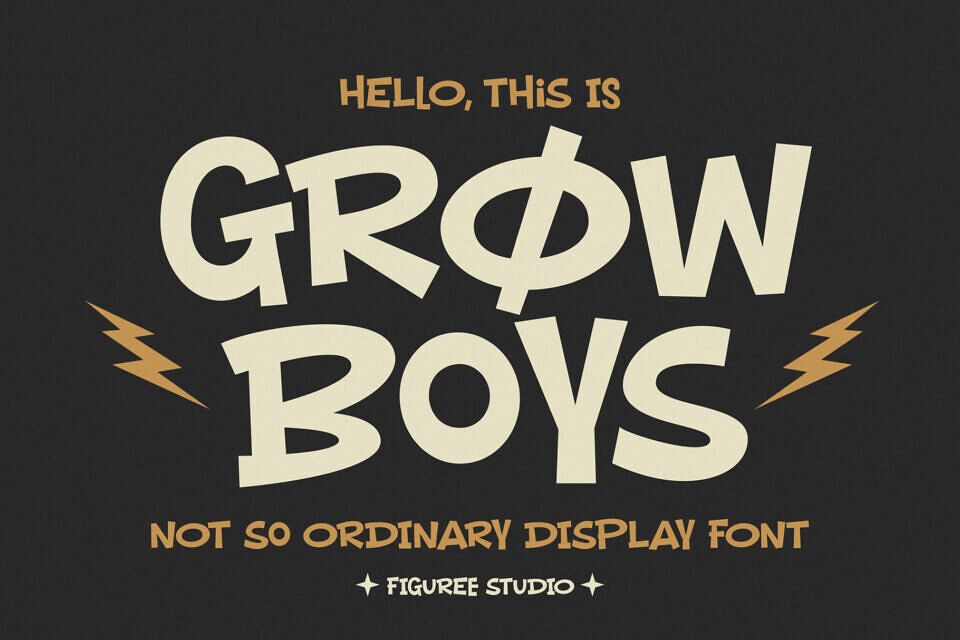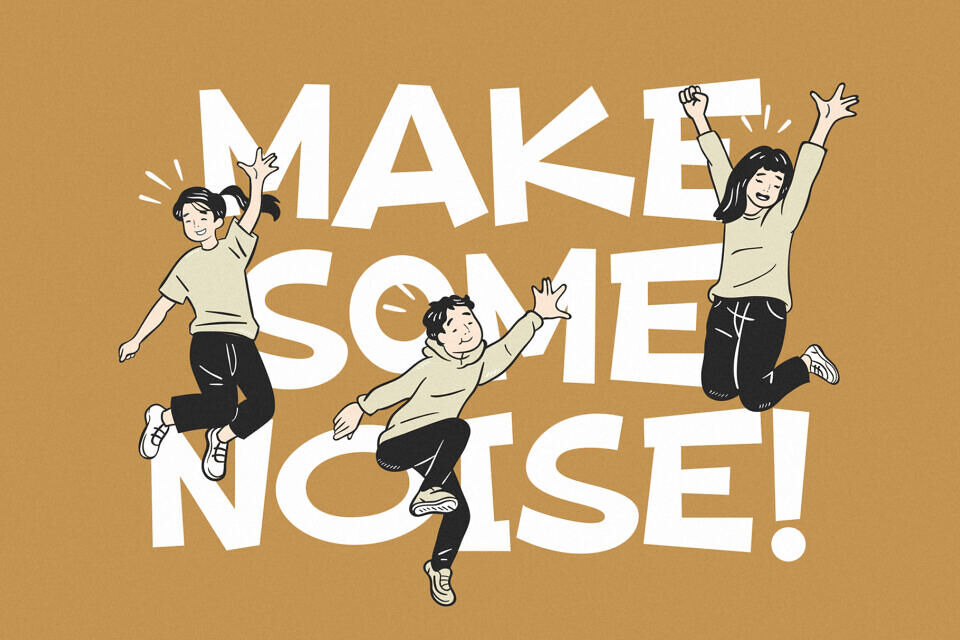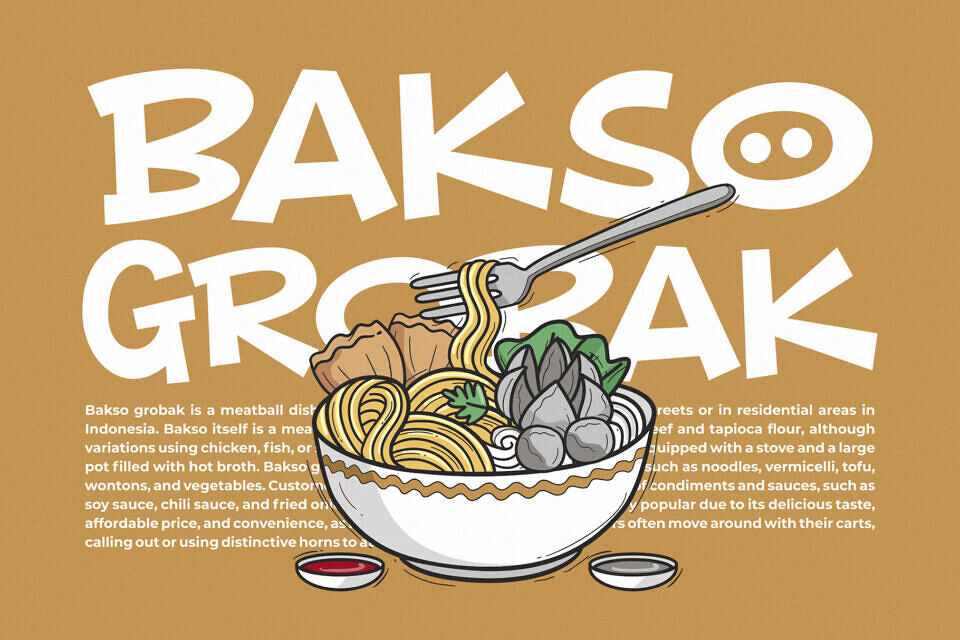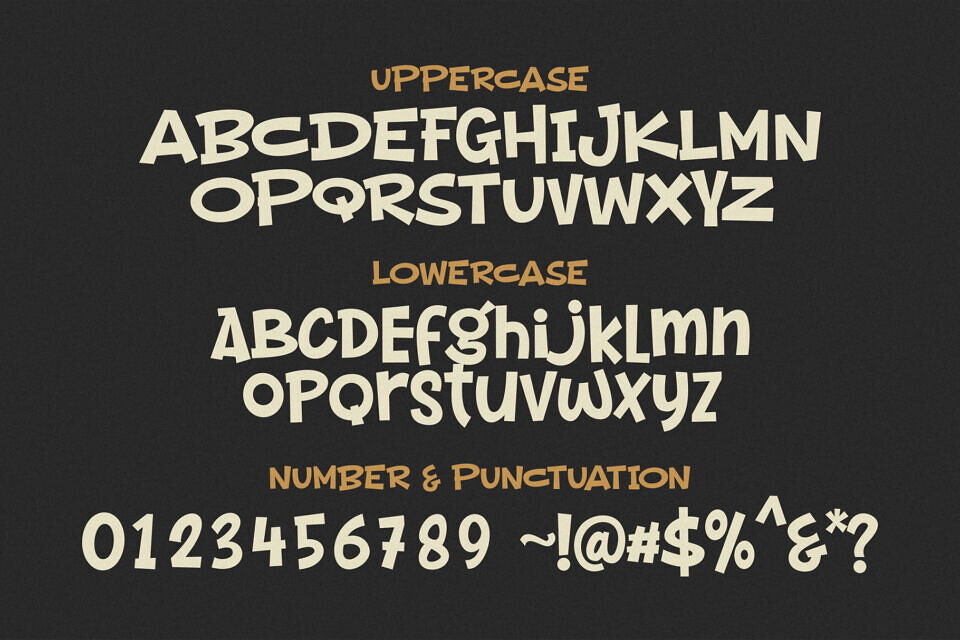
Grow Boys Font
Elevate your designs with Grow Boys, a playful and distinctive font that adds quirky charm. Its irregular, fun letterforms bring creativity to children’s books, posters, logos, and social media graphics.
Perfect for projects needing a unique, eye-catching touch, Grow Boys breaks from the ordinary with its unconventional style. Versatile for print and digital, this font infuses personality into branding, packaging, and more. Make your designs memorable with Grow Boys’ bold, artistic flair—your go-to for a whimsical, impactful look.